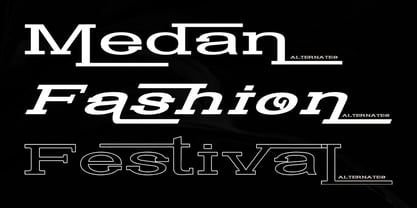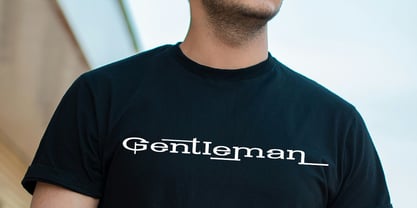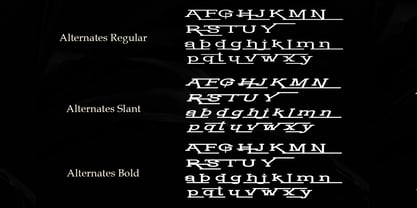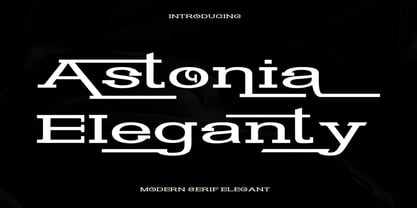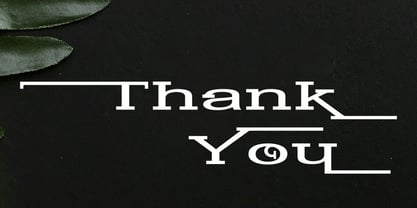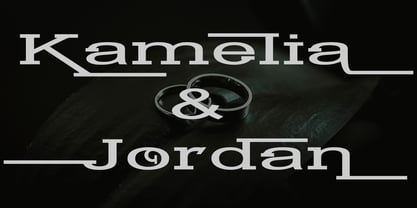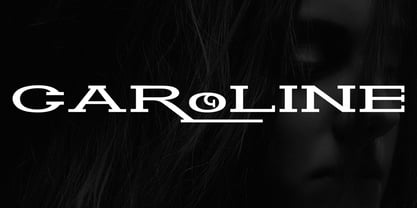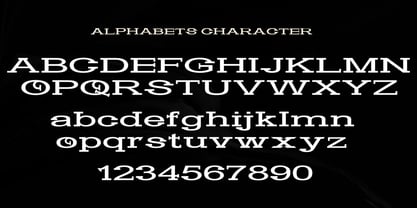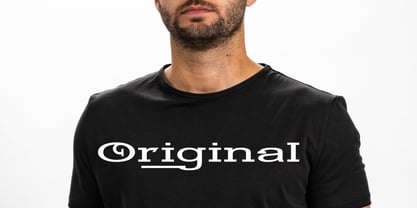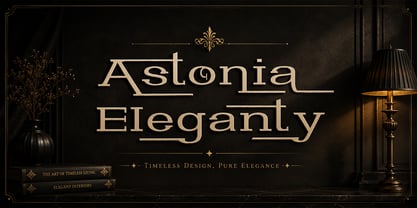
Astonia Eleganty
by Shape Studio
The Astonia Eleganty Font Family was designed by Teuku Saifullah and published by Shape Studio. Astonia Eleganty contains 4 styles and family package options.
Astonia Eleganty is a mix of retro and modern serif font styles, with these tight curves giving traditional groovy, luxury, and versatility. Astonia Eleganty is made with a high degree of legibility and is perfect for nostalgic projects, vintage logos, wedding designs, social media posts, advertisements, product packaging, product designs, labels, photography, watermarks, invitations, stationery, and more. Astonia Eleganty font is also PUA-encoded, ensuring effortless access to all glyphs, swashes, and alternate characters to help you customize your creations with ease.